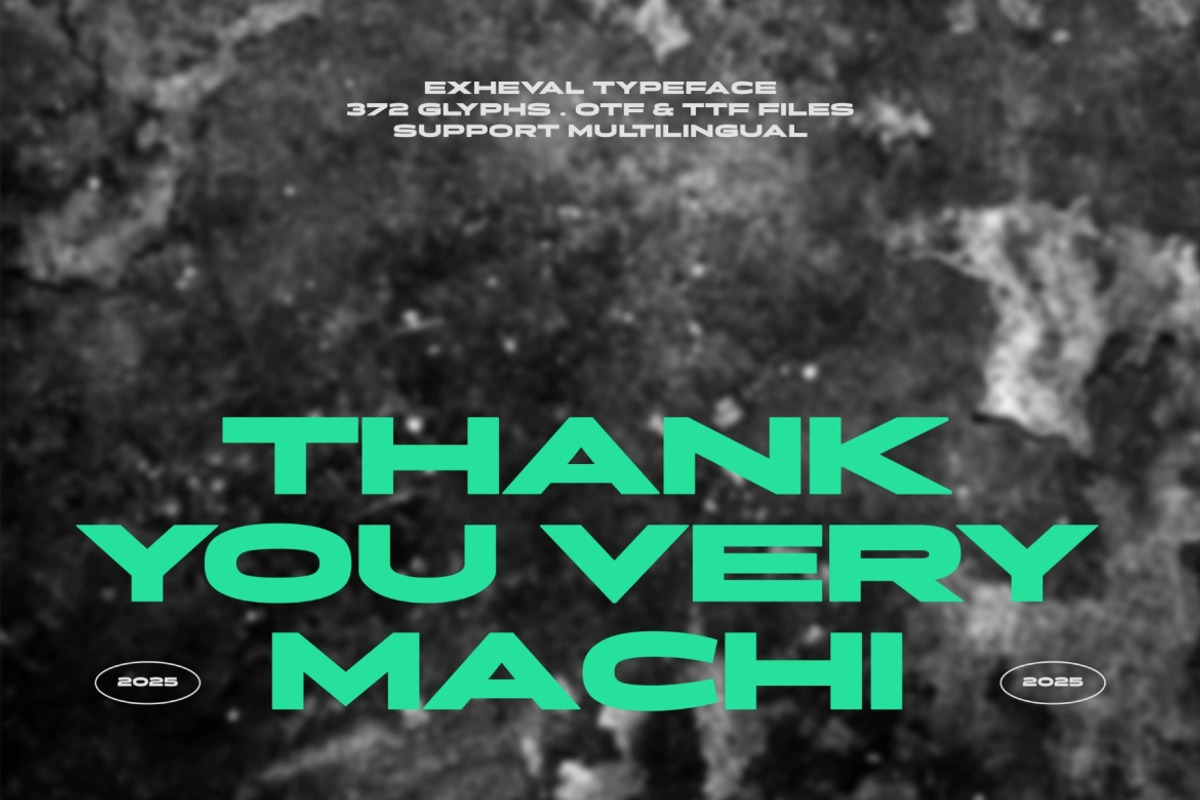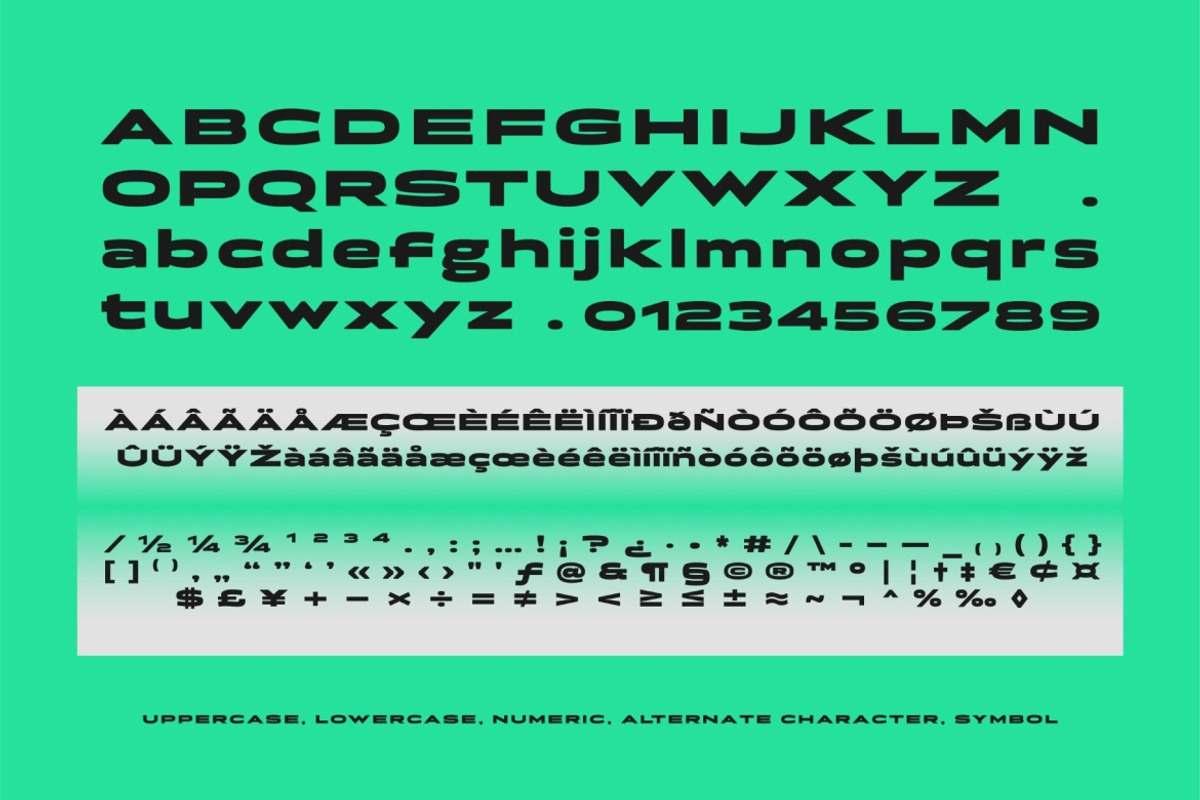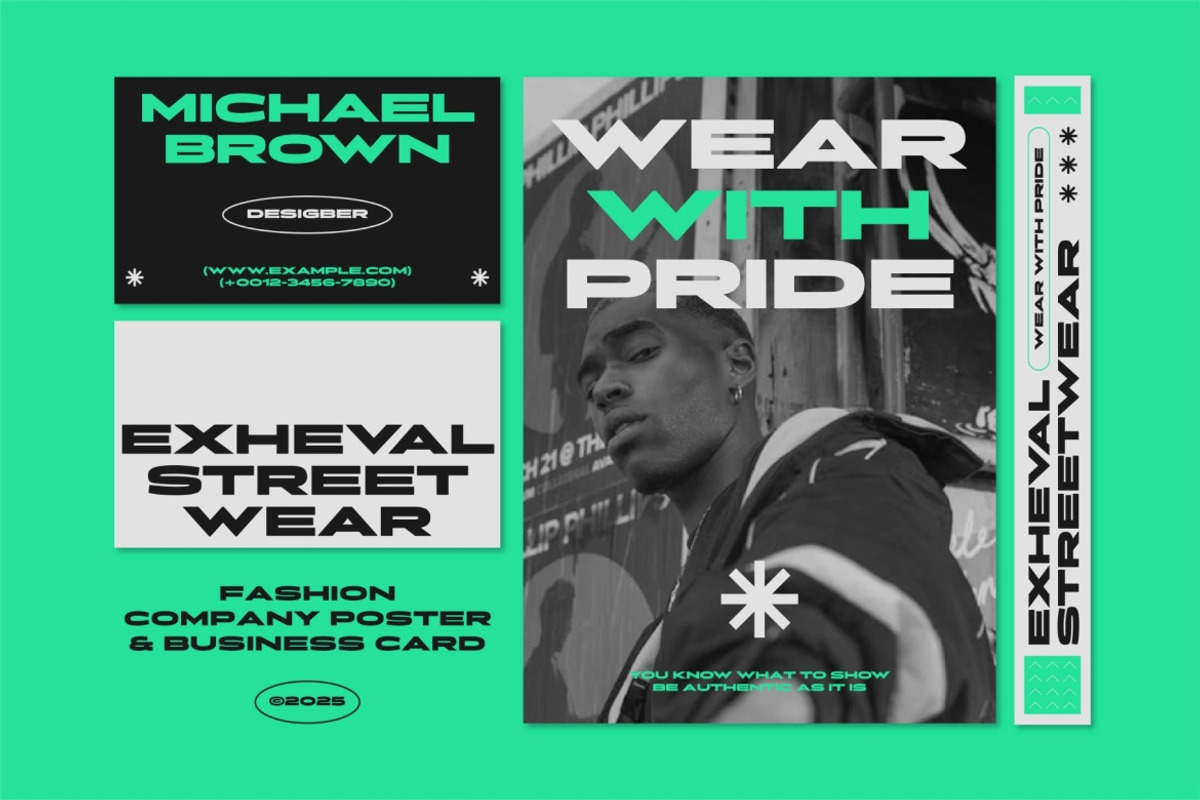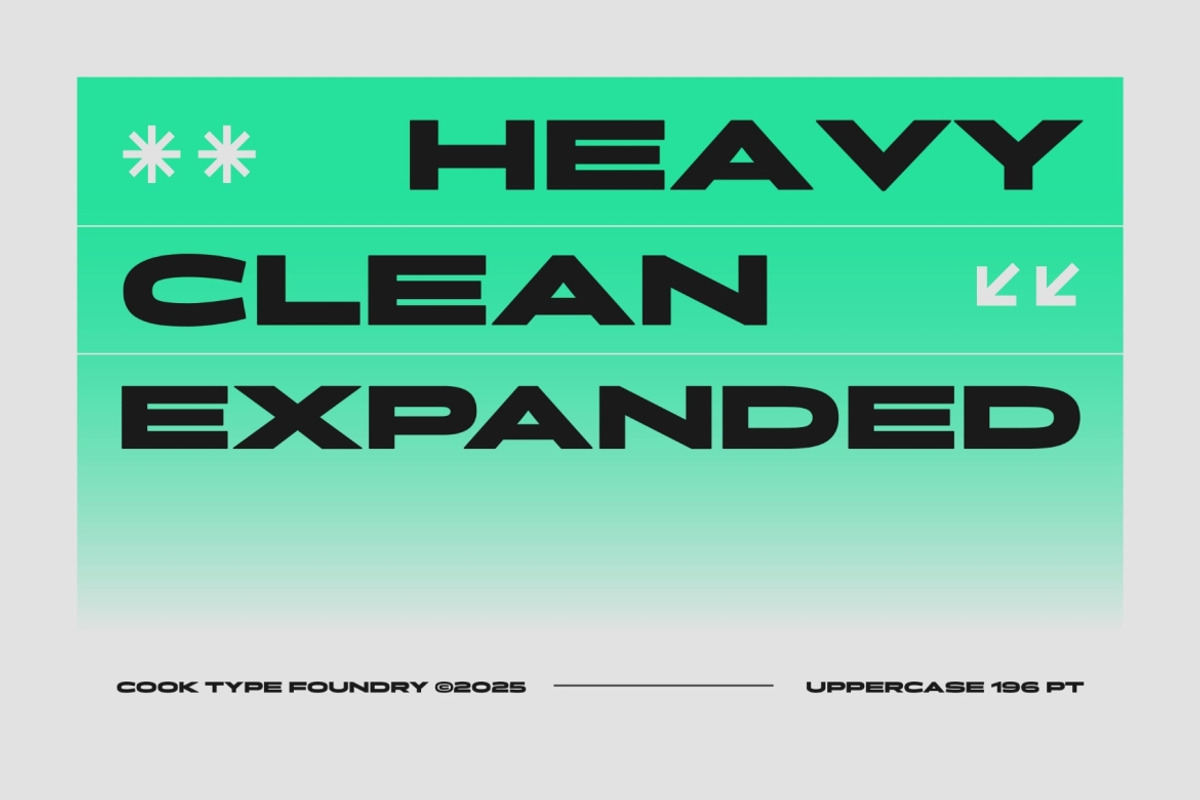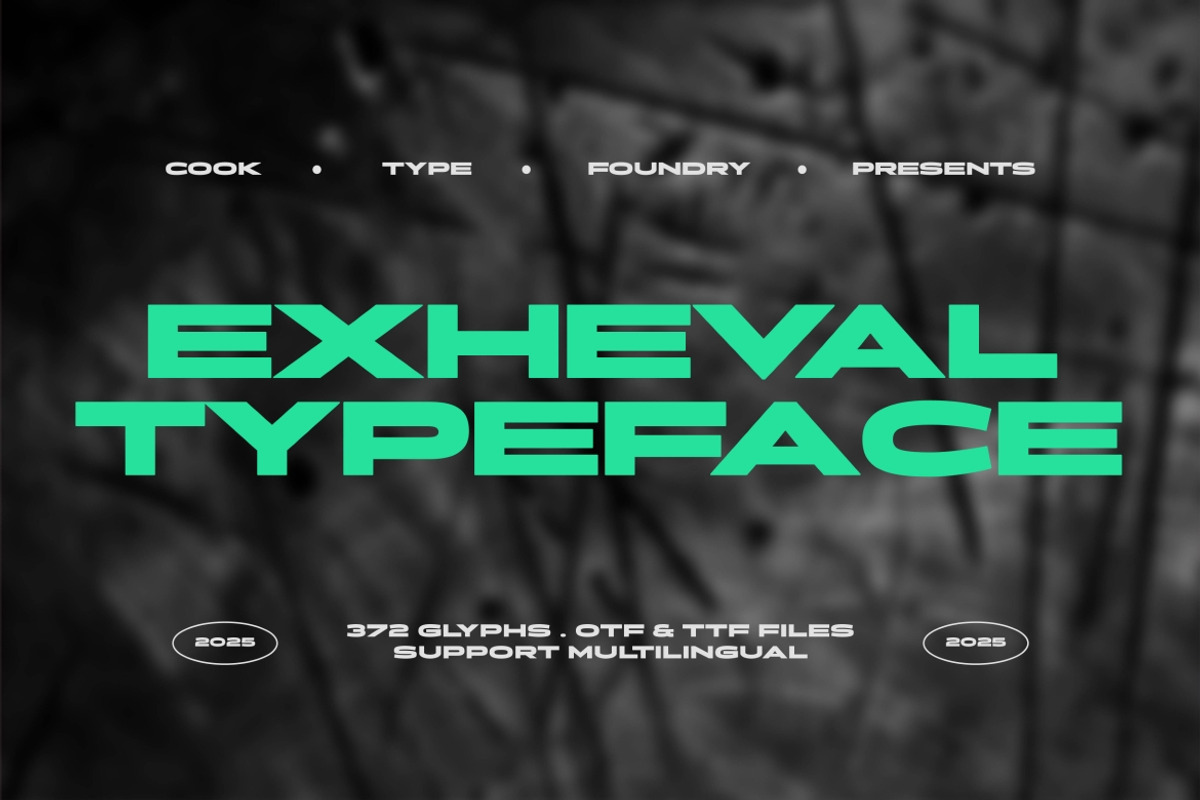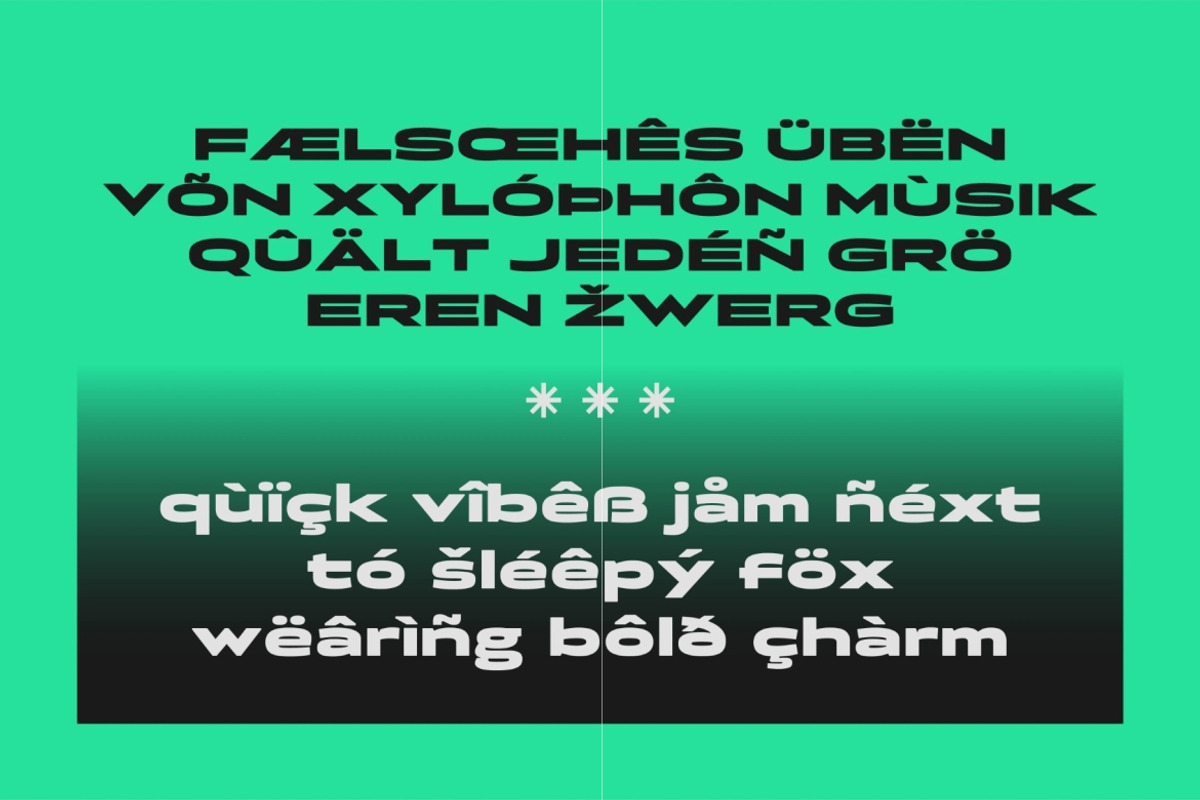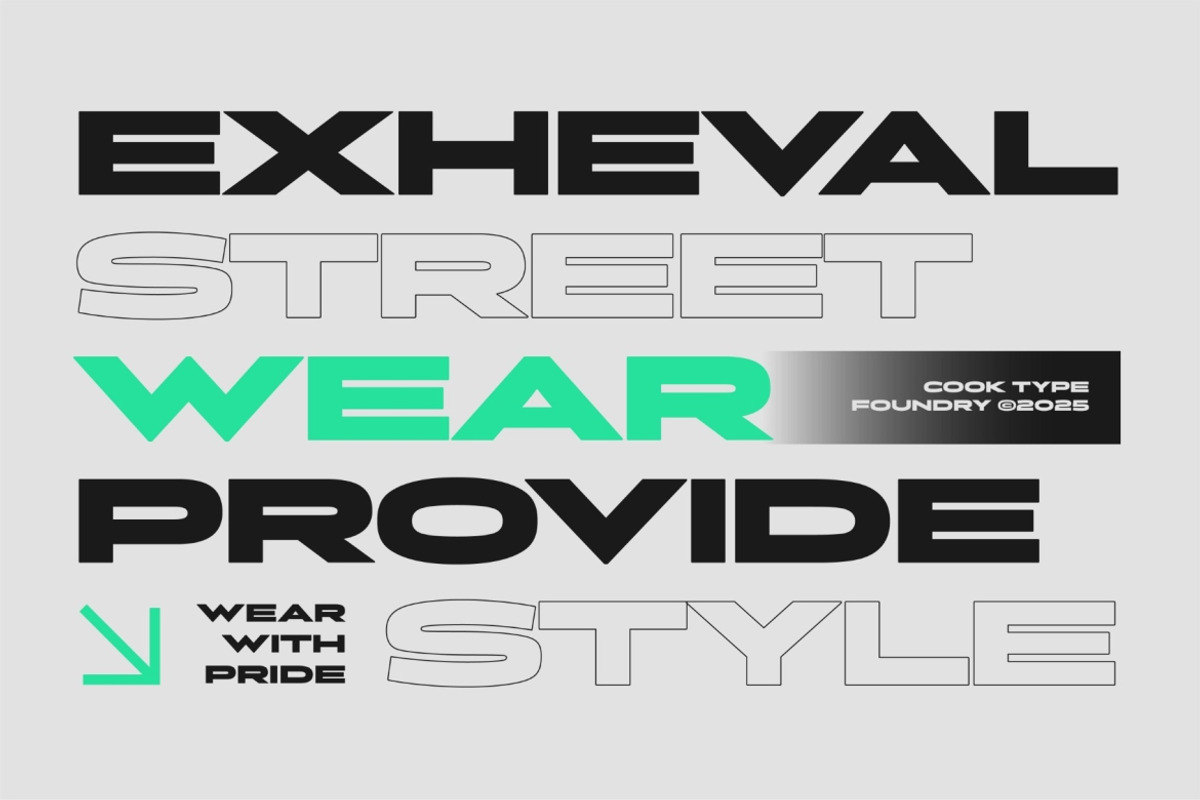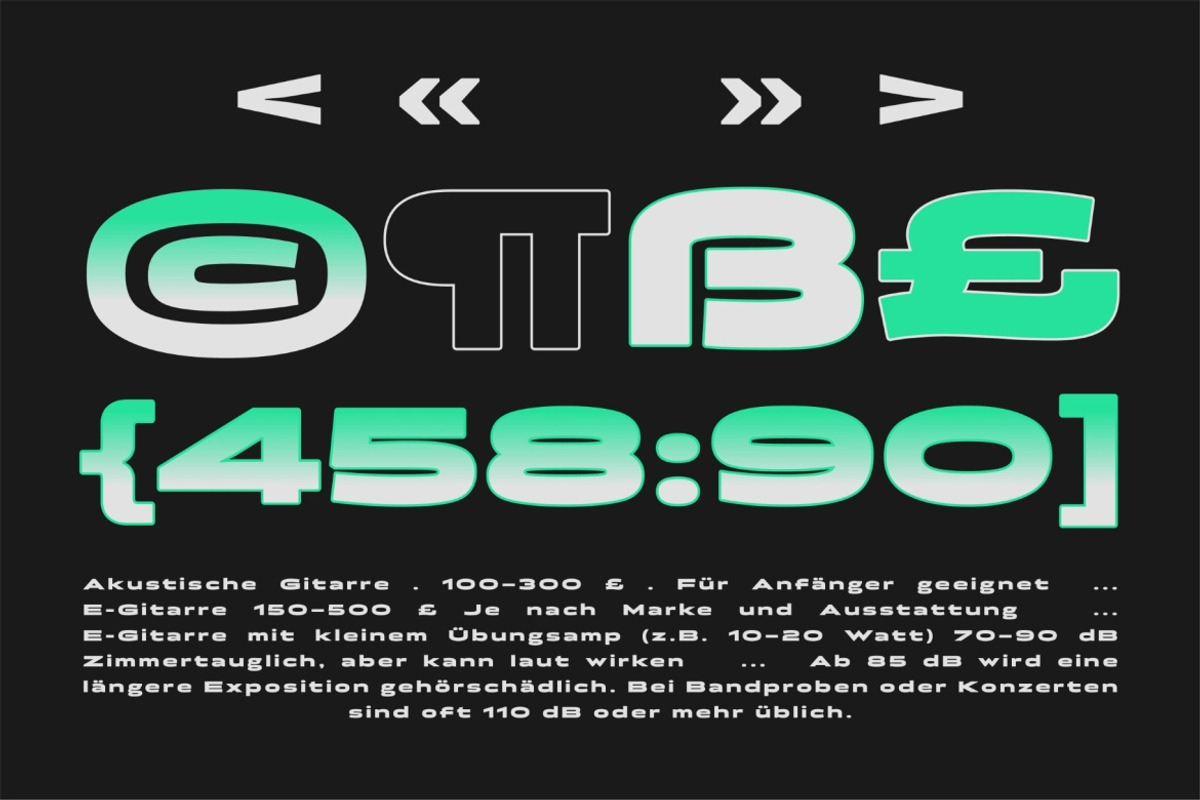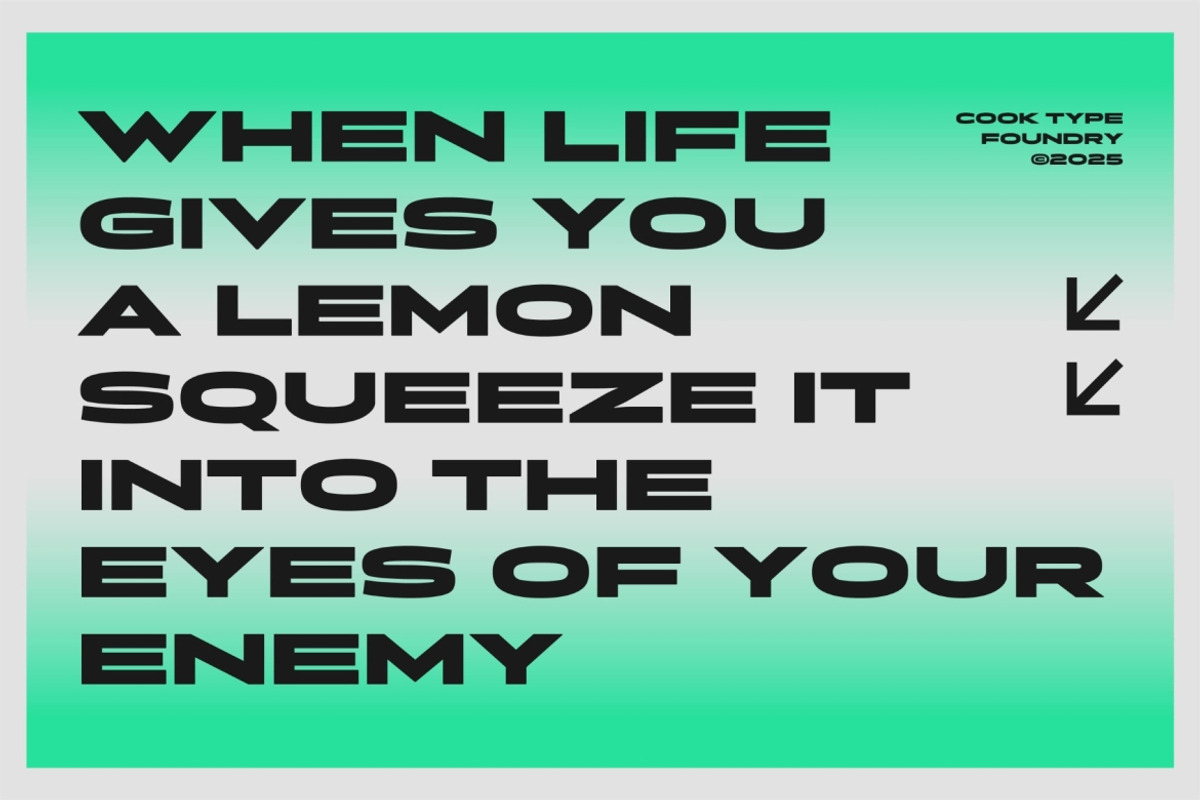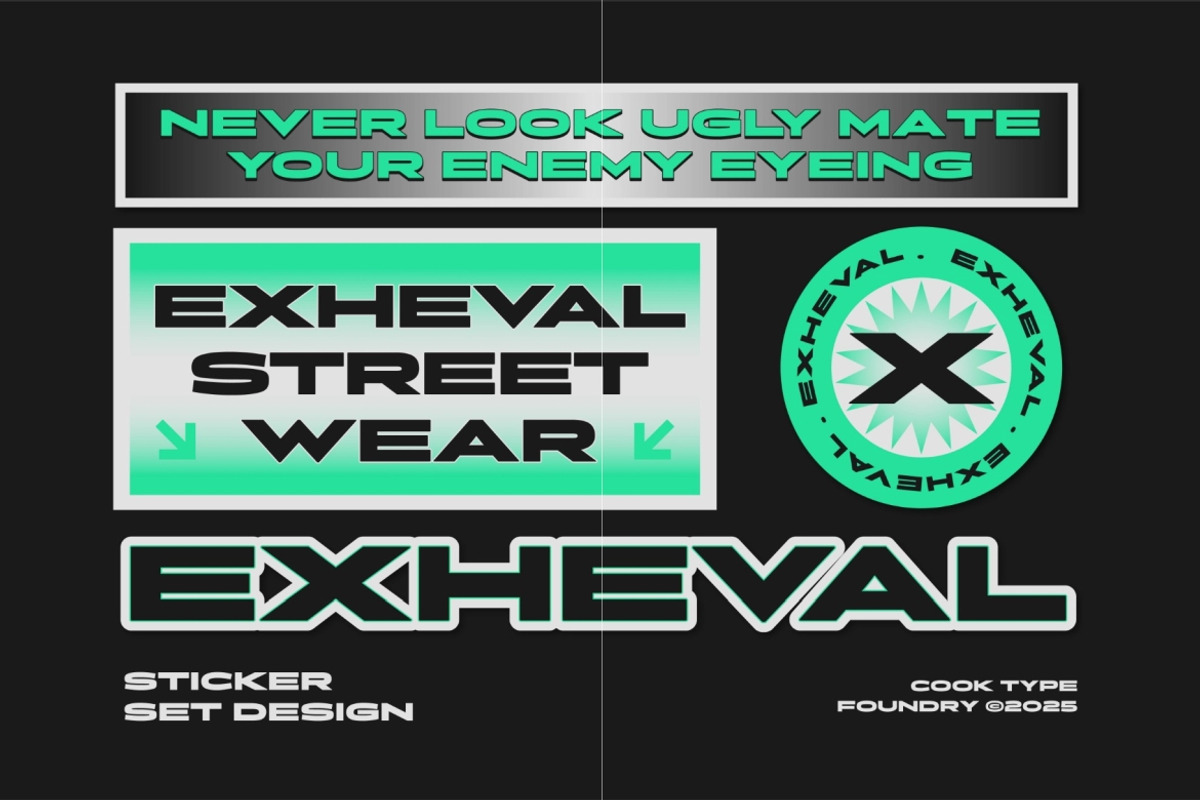
Exheval
Exheval is a wide-format display font with a bold, precise, and futuristic aesthetic. Its sharp geometry and expanded structure create a techno, cyber-inspired look—ideal for modern, high-energy designs that need a strong visual impact.
It is perfect for headlines, logotypes, magazines, packaging, quotes, movies, games, cover albums, book covers, and flyers, it's a perfect solution for creating eye-catching designs that stand out in any context.